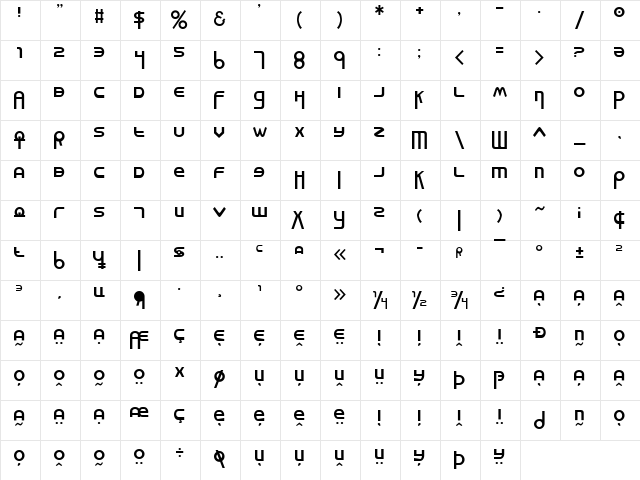
Milk Bar Regular
| Designer | Dan Zadorozny |
Design Context for Milk Bar Typeface
Milk Bar is a composed and adaptable typeface that performs quietly and consistently across a wide range of design contexts.